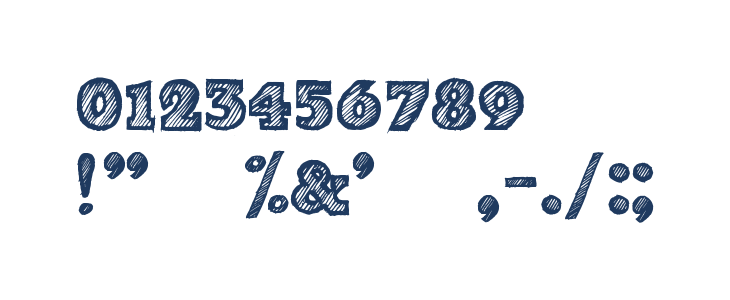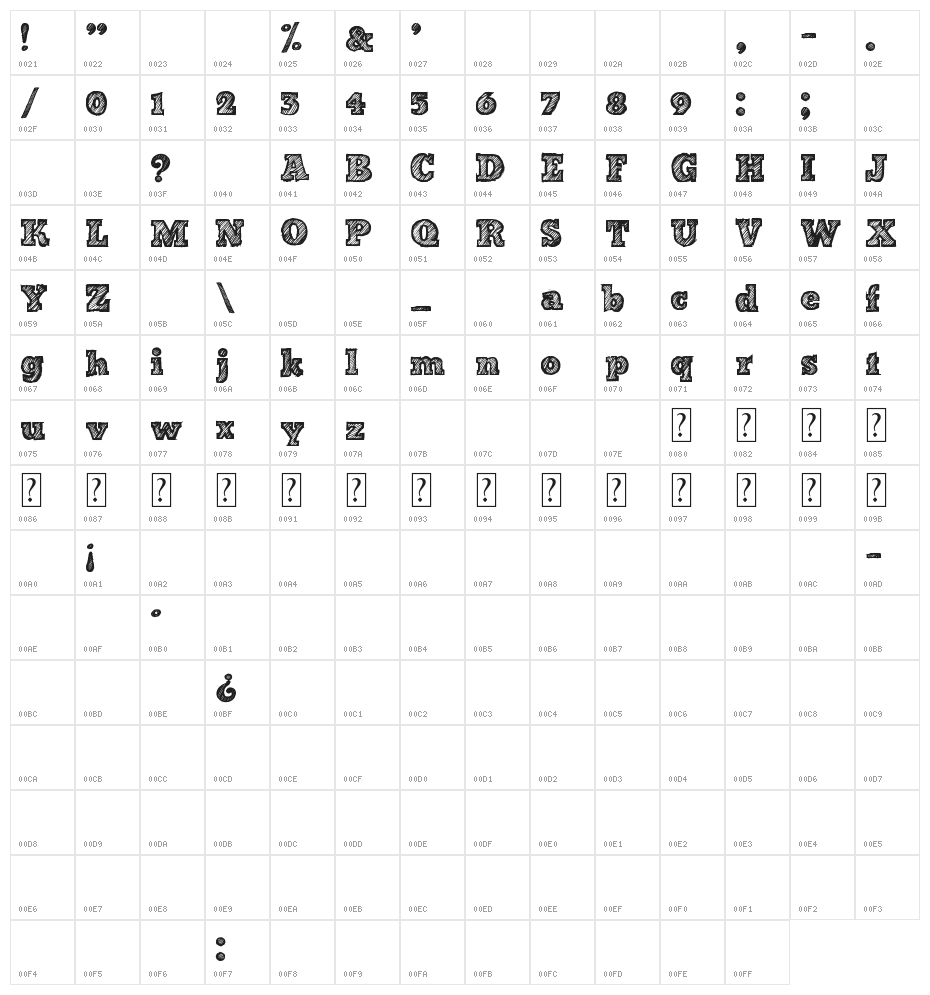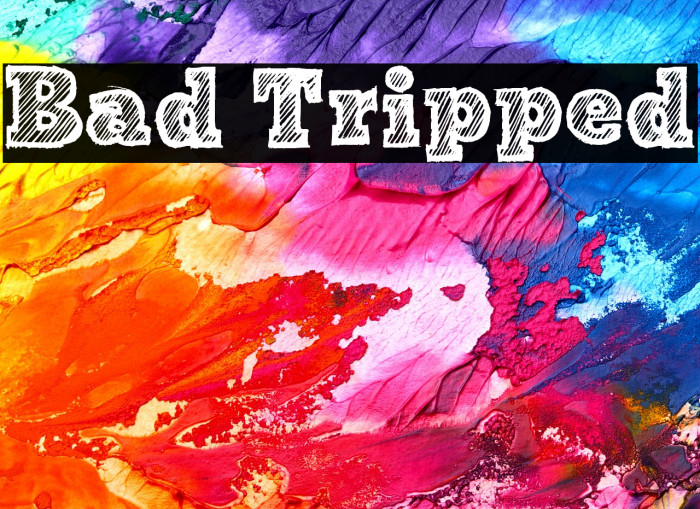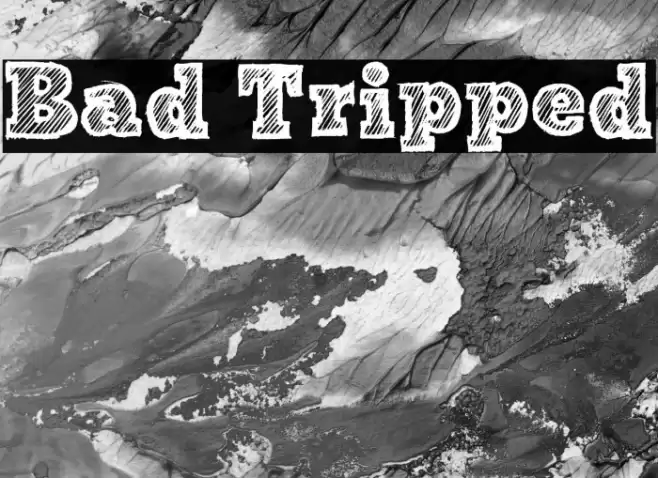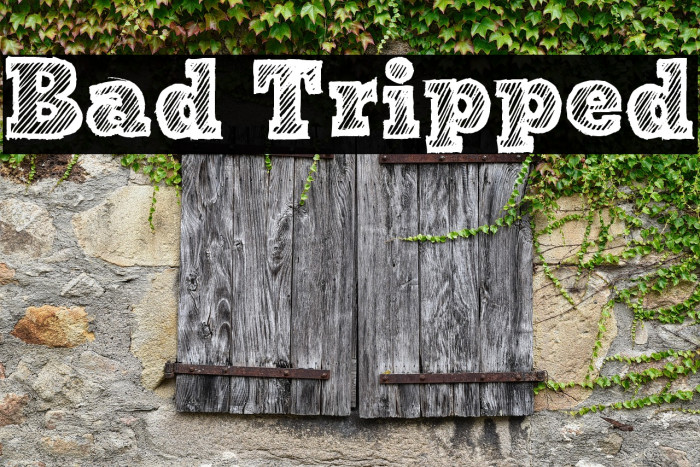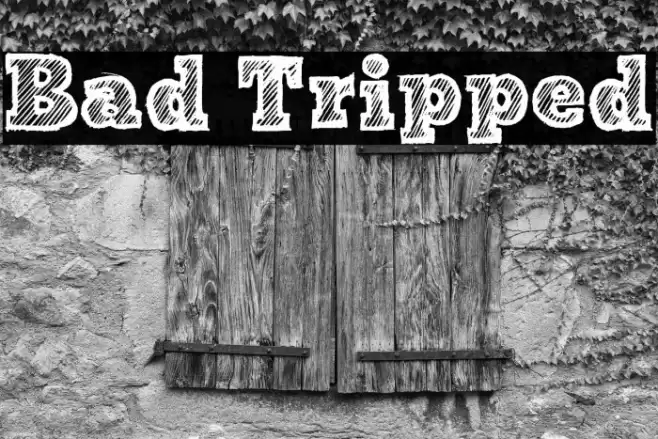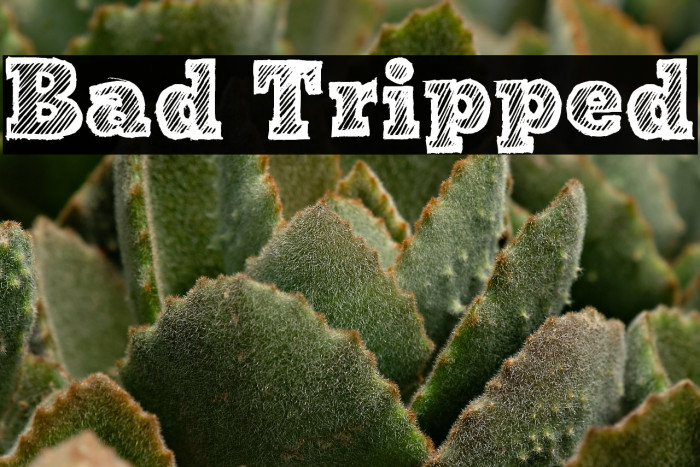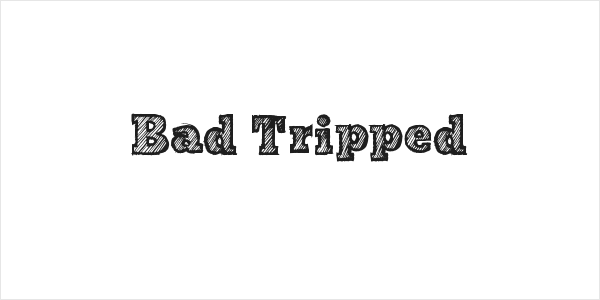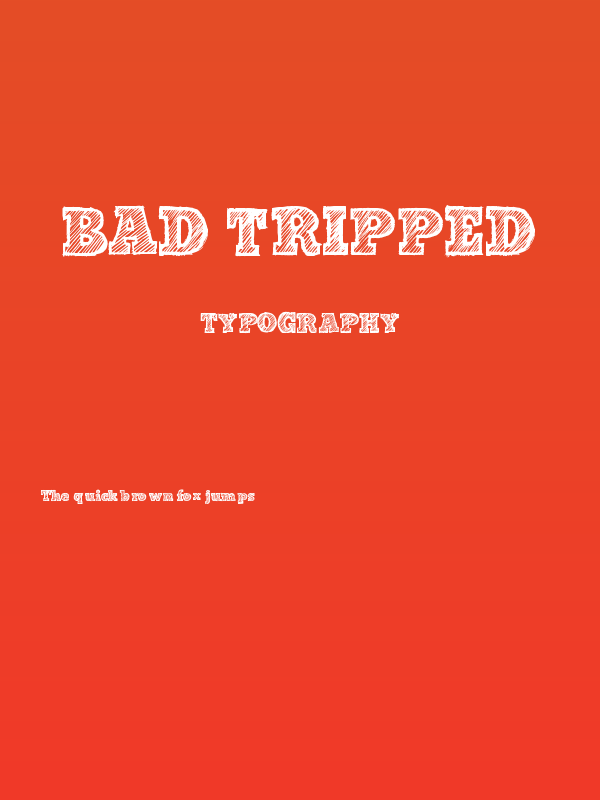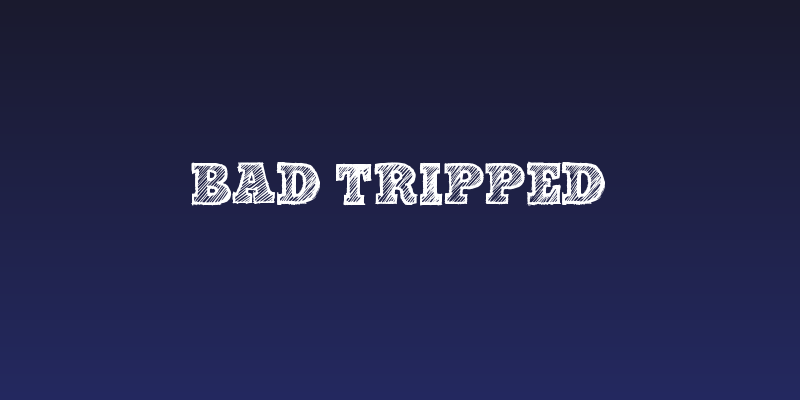
Bad Tripped Font
Bad Tripped Description
This font features a bold, hand-drawn style with a textured, sketch-like appearance. Each character is filled with diagonal lines, giving it a unique, artistic look. The letters are thick and robust, with a playful yet slightly rugged feel. The uppercase and lowercase letters maintain consistent proportions, while the numbers and special characters follow the same design pattern. This font exudes a sense of creativity and individuality, making it stand out in any design project.
| Proposed Projects | Ideal for creative projects such as posters, album covers, and artistic branding. It can also be used in children's books, comic strips, or any design requiring a playful and unique touch. |